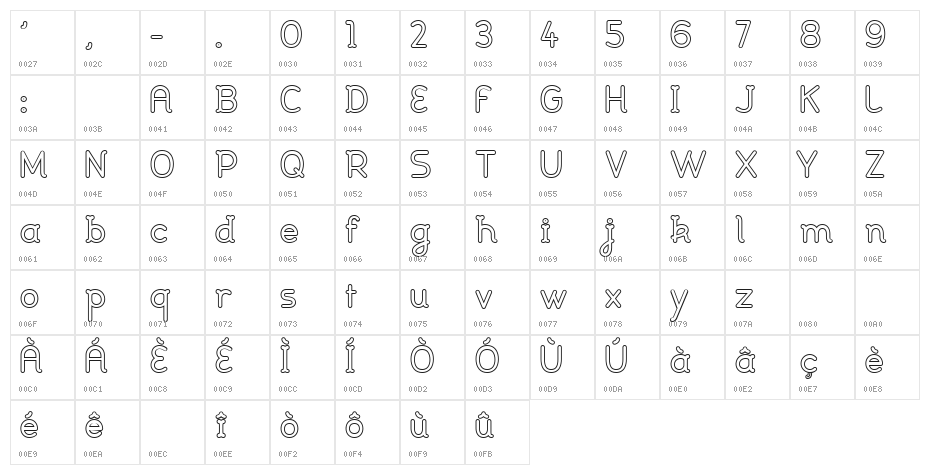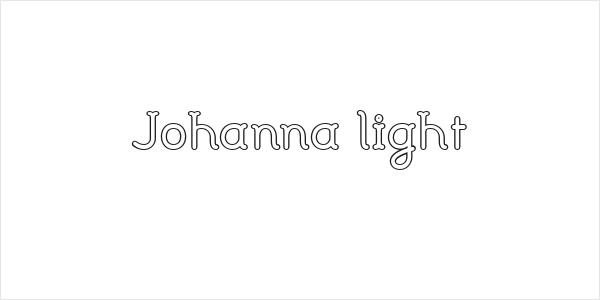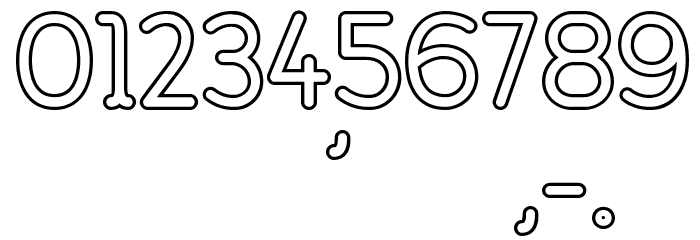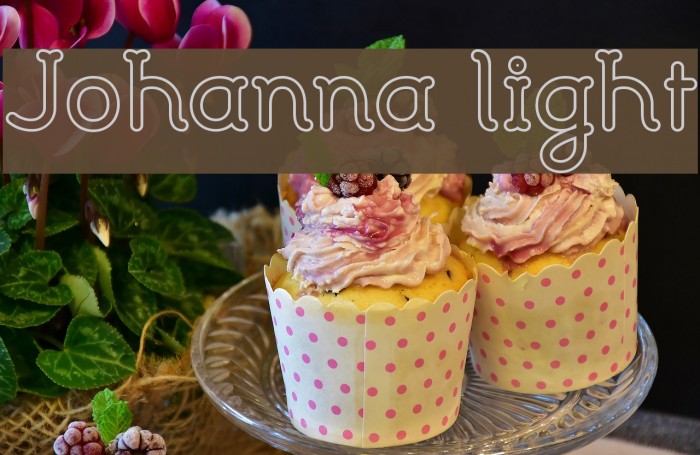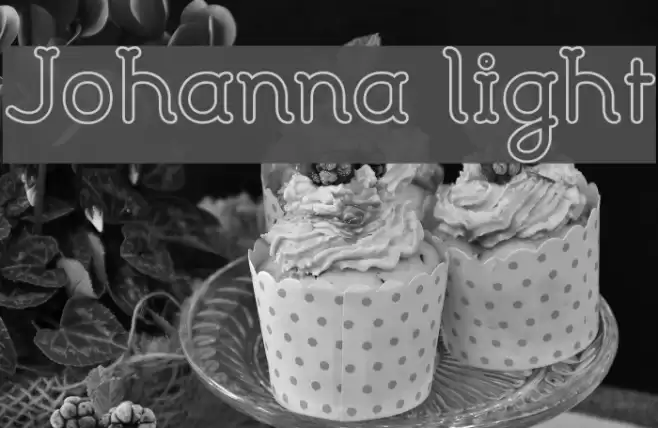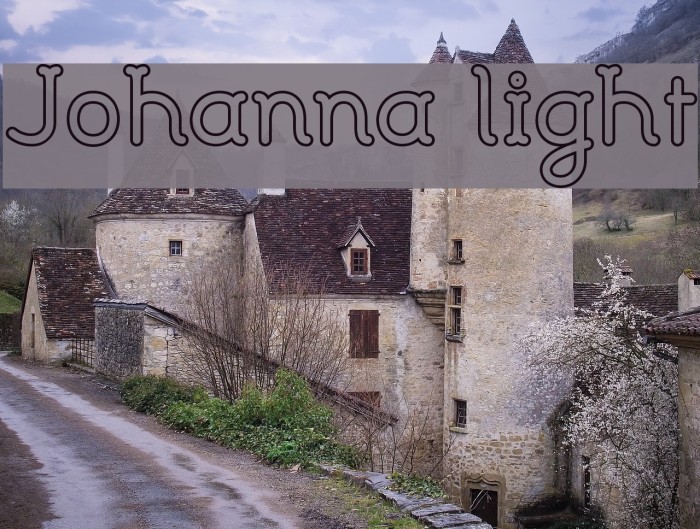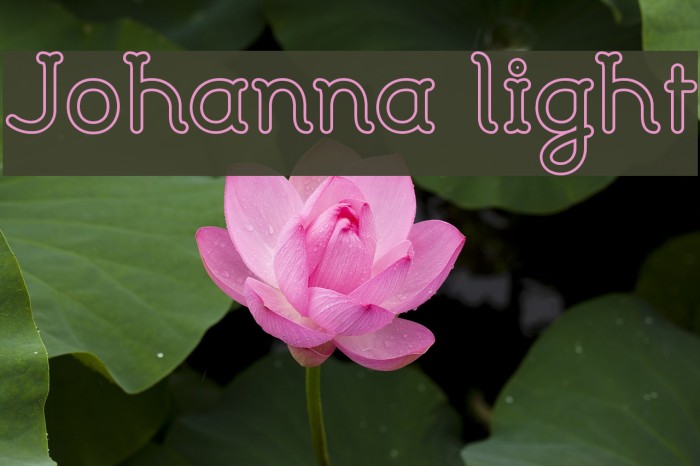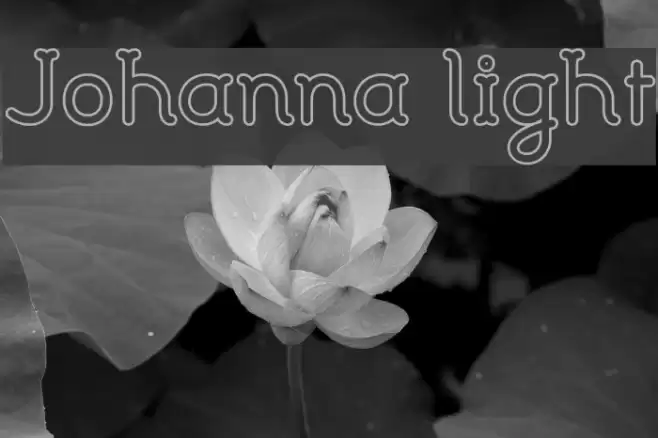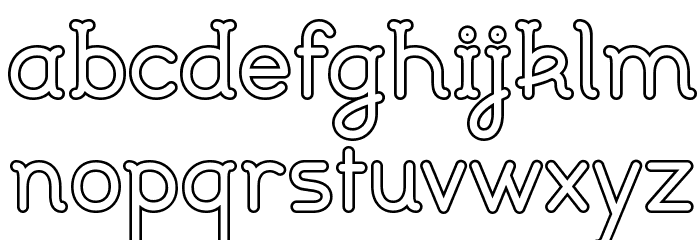
Johanna light Font
Johanna light Description
This font features a playful and modern outline style with a clean and geometric appearance. The characters are formed with consistent stroke widths, creating a harmonious and balanced look. The uppercase and lowercase letters maintain a uniform height, enhancing readability. The numerals and special characters are designed to match the overall aesthetic, providing a cohesive visual experience. This font's open and airy design makes it suitable for various creative applications, offering a fresh and contemporary feel.
| Proposed Projects | Ideal for children's books, playful branding, posters, and creative digital content. |